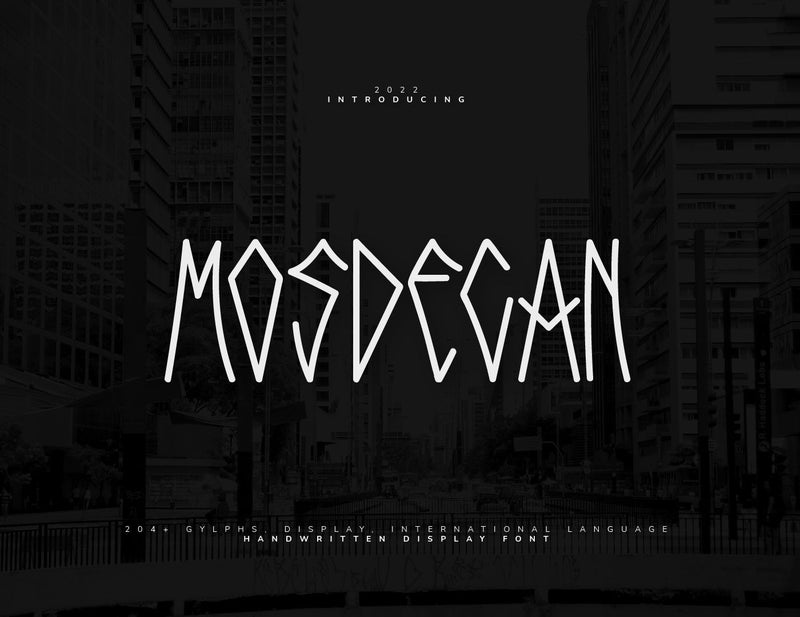
Mosdecan Display Font
Mosdecan is one of the display font which made on 2022. "Mosdecan" has a line that makes this font look unique, there are some bends but still looks firm. You can find some examples of this scribble on the streets of San Paulo because this font inspired from typography of there. you can use this font to make your design look more unique and aesthetic. "Mosdecan" is a perfect choice for your poster design, invitation card, social media post, also your headlines project.